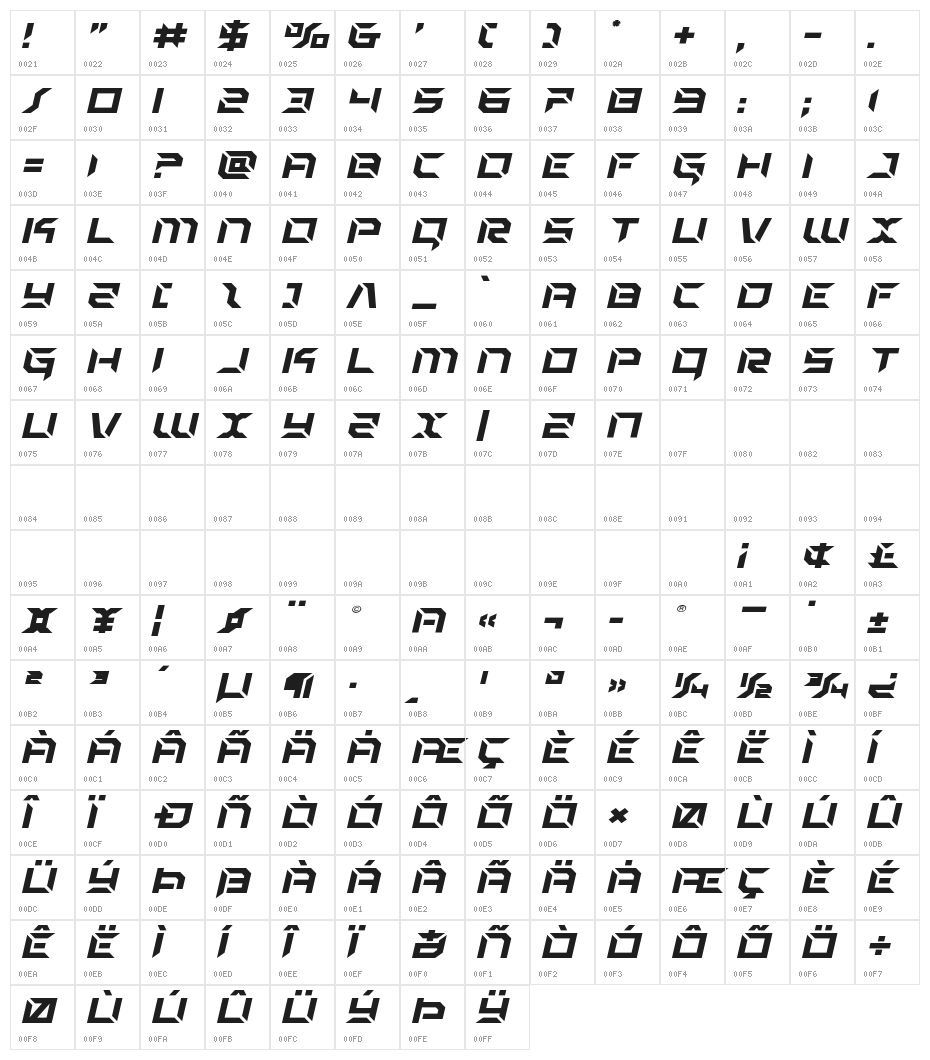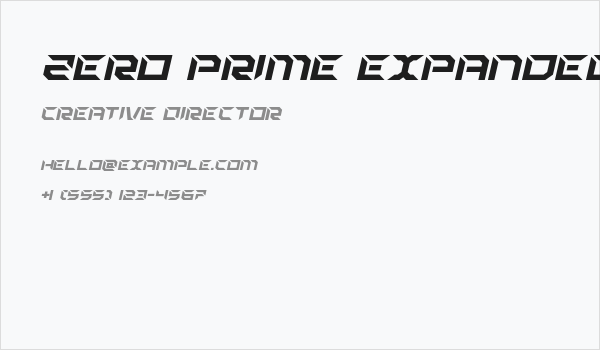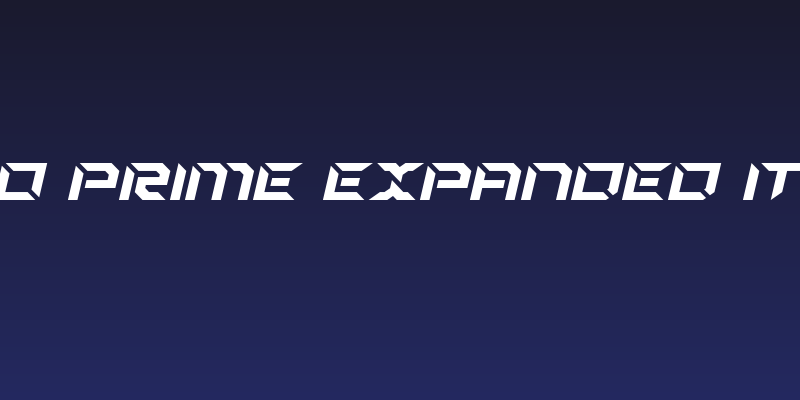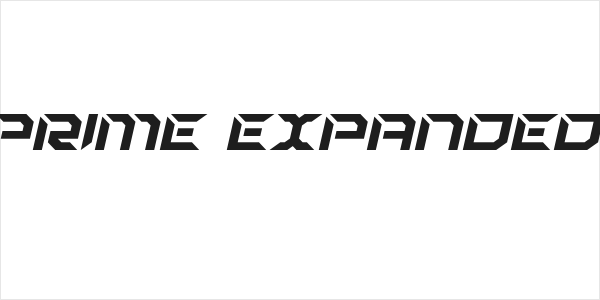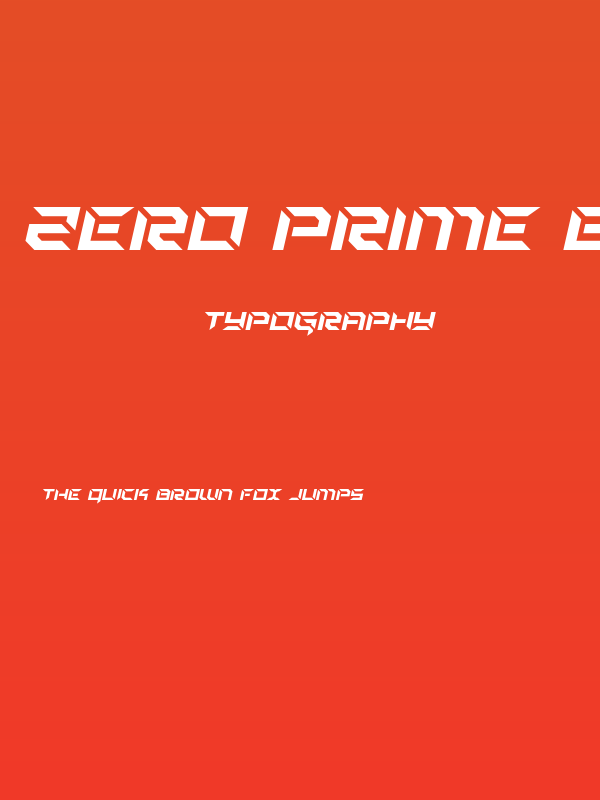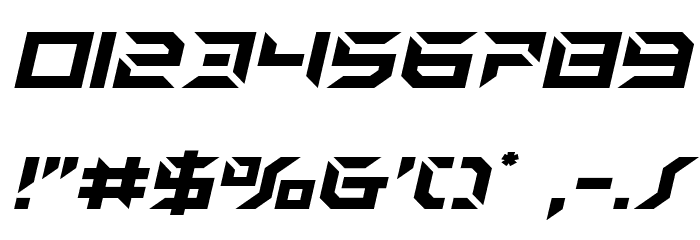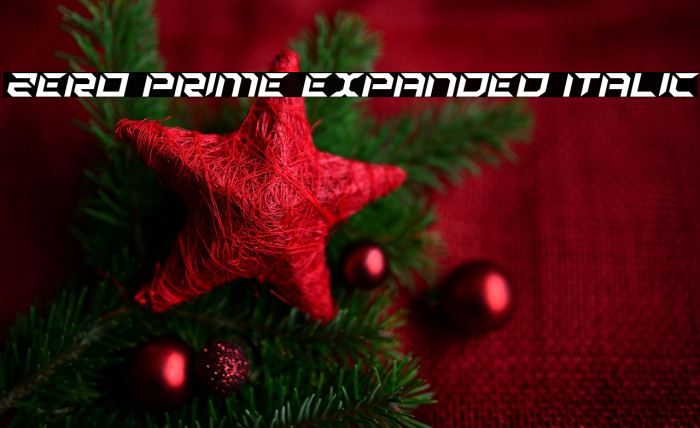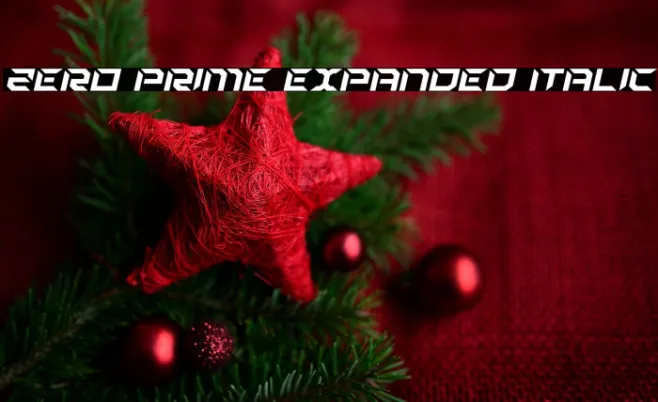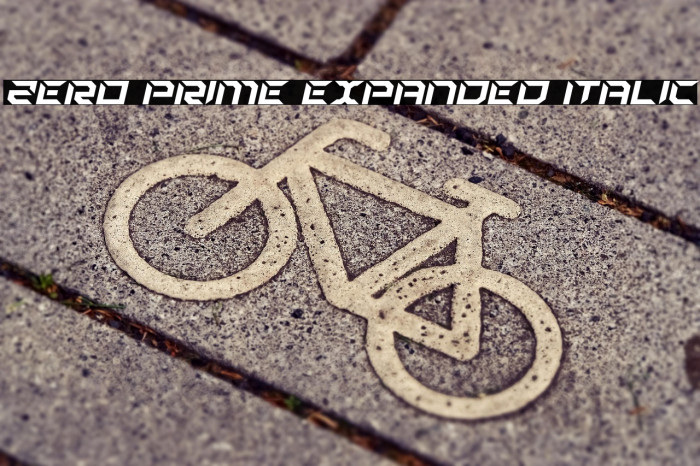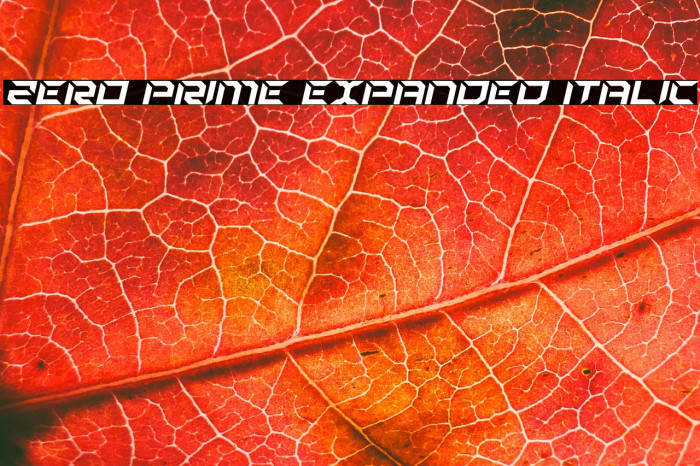
Zero Prime Expanded Italic Font
Zero Prime Expanded Italic Description
This font features a futuristic and angular design, characterized by sharp edges and geometric shapes. The letters are bold and expanded, giving a strong visual impact. The italic style adds a dynamic and forward-leaning appearance, enhancing its modern aesthetic. The characters are uniformly wide, maintaining a consistent look across the alphabet. The numbers and special characters follow the same angular and bold style, ensuring uniformity throughout. This font is ideal for projects that require a modern and edgy look, such as technology branding, sci-fi themes, or video game titles.
| Proposed Projects | Ideal for technology branding, sci-fi themes, video game titles, and modern posters. |